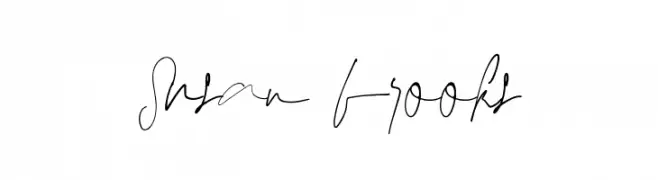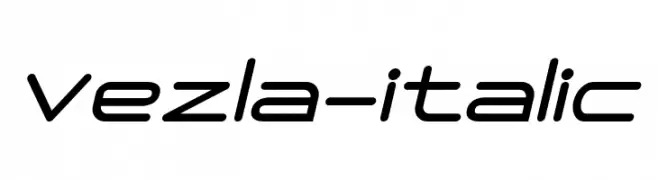
A fluid, cursive handwritten font with dynamic strokes and interconnected letters.
A bold, cursive font with a playful and dynamic handwritten style.
A playful, cartoon-like font with quirky characters and expressive features.
An elegant, flowing script font with a handwritten appearance.
A playful design of interconnected jigsaw puzzle pieces forming characters.
A playful and eclectic decorative font with unique character designs.
A playful, hand-drawn font with whimsical, decorative elements.
A playful and eclectic font with unique designs for each character.
An elegant script font with intricate swashes and high contrast, perfect for luxurious designs.
A playful, handwritten font with quirky, decorative elements.
A bold, slanted font with a dynamic and playful style.
A whimsical and playful font with artistic flair and casual elegance.
A playful and eclectic font with unique, whimsical character designs.
An artistic, brush-stroke font with a calligraphic flair.
A modern, playful font with geometric shapes and artistic elements.
A modern, rounded font with a futuristic and fluid design.
A pixelated, maze-like font with a geometric and modern style.
A bold, fluid script font with elegant, connected strokes and high contrast.
An elegant italic font with a flowing, cursive style.